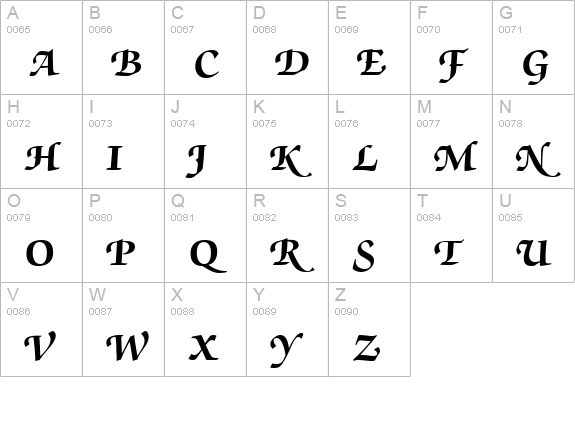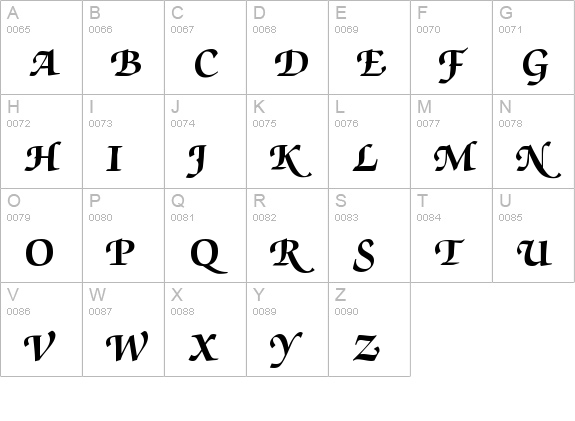
ZabriskieScriptSwash-Heavy-Regular Font Details
ZabriskieScriptSwash-Heavy-Regular is a heavy, high-impact variant in the ZabriskieScriptSwash typeface family \xE2\x80\x94 well suited to high-impact headlines, posters, and display advertising.
ZabriskieScriptSwash-Heavy-Regular is a stunning and elegant font that exudes a sense of sophistication and charm. With its intricate swashes and bold weight, this font is perfect for adding a touch of luxury to your designs. Whether you are creating wedding invitations, branding materials, or elegant signage, ZabriskieScriptSwash-Heavy-Regular is sure to make a statement. The free version of ZabriskieScriptSwash-Heavy-Regular is available for download at FontsMarket.com, allowing you to easily incorporate this beautiful font into your projects without any cost. Embrace the beauty and elegance of ZabriskieScriptSwash-Heavy-Regular in your designs today and elevate them to a whole new level of sophistication.